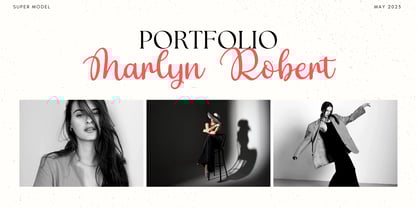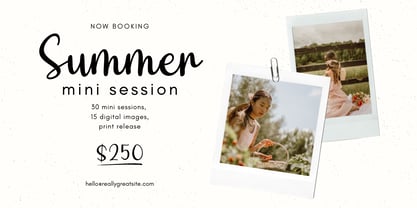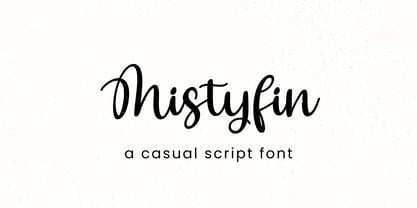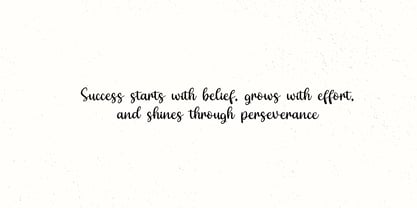
Mistyfin
The Mistyfin Font Family was designed by Dian Haniffan Hadi and published by Beary. Mistyfin contains 1 styles.
Mistyfin - The Perfect Modern Script Font
Mistyfin is a beautiful modern script font, featuring a complete set of uppercase and lowercase letters, multilingual symbols, numbers, and punctuation. With a smooth ballpoint pen texture, this font is designed to add an elegant and natural touch to your designs.
It is PUA encoded, allowing easy access to all its glyphs and ligatures. This font is perfect for a wide range of design needs.
Perfect for:
• Digital wedding invitations and blogs
• Online shops and social media branding
• Print designs such as clothing, accessories, bags, pins
• Logos, business cards, and watermarks
With its cute and attractive style, Mistyfin brings charm to your products and designs. Plus, it offers full multilingual support for broader use!